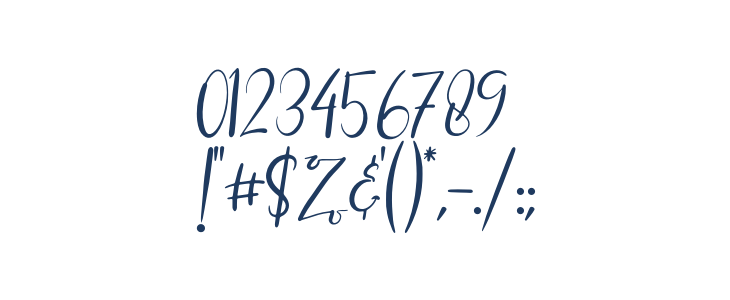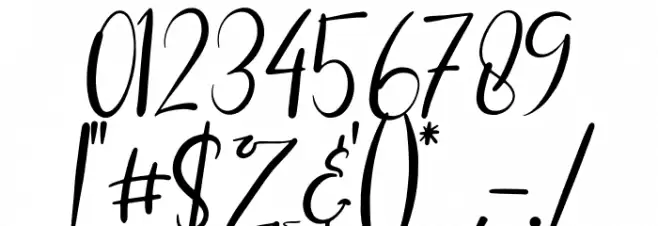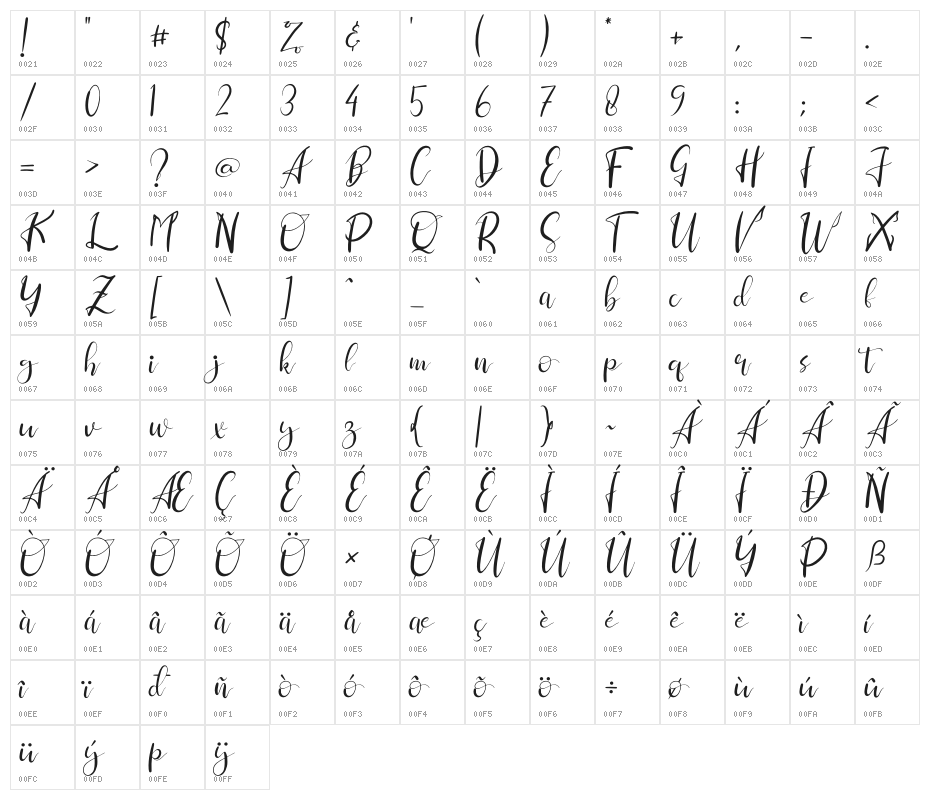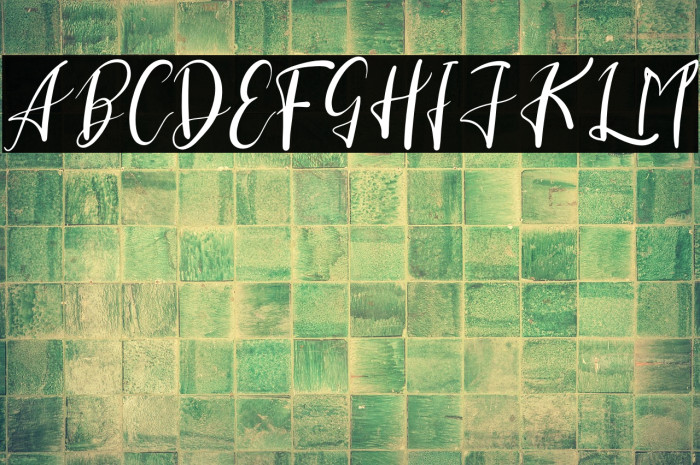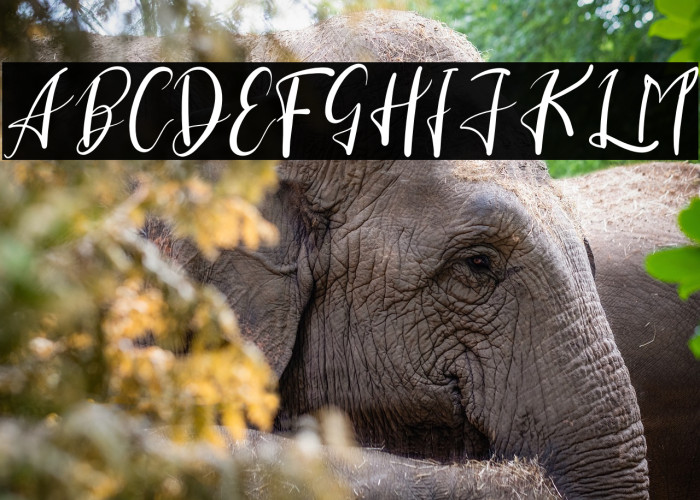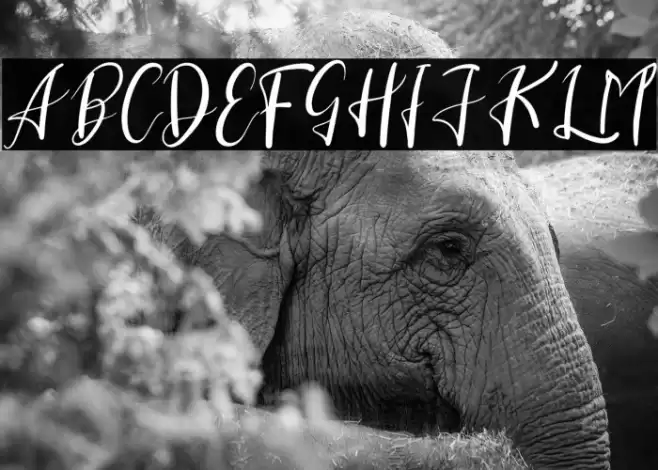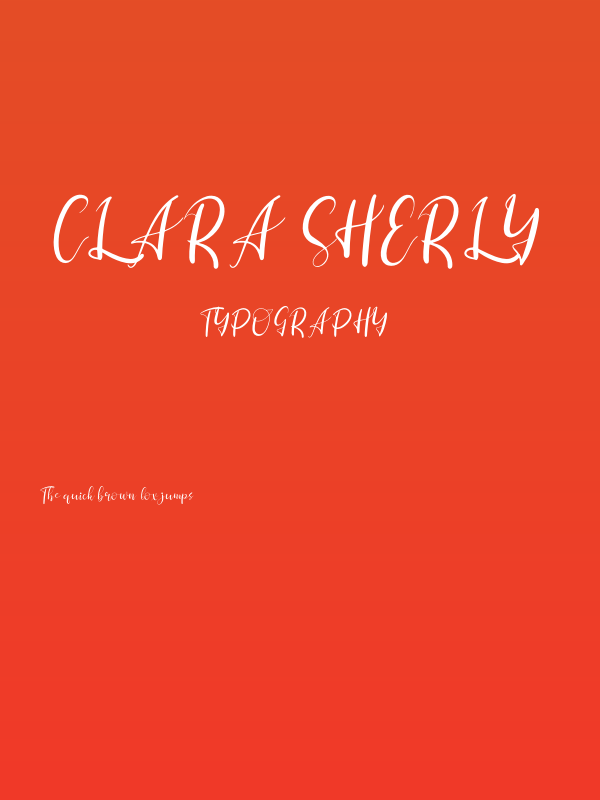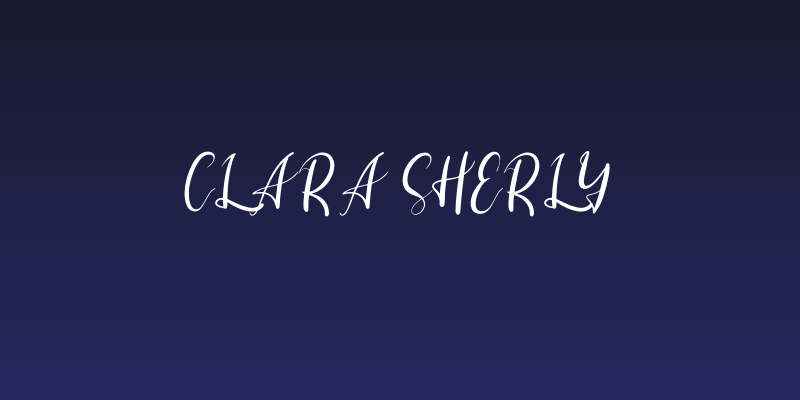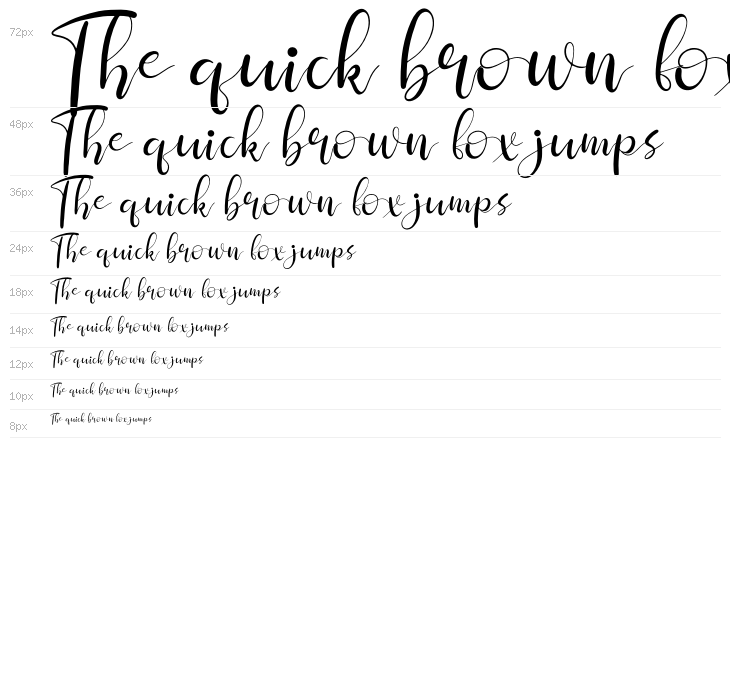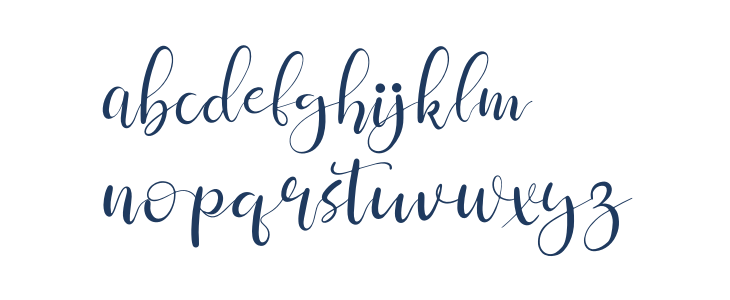
Clara Sherly Font
Clara Sherly Description
This font features an elegant and flowing script style, characterized by its cursive and connected letterforms. The uppercase letters are ornate, with sweeping curves and flourishes that give a sense of sophistication and grace. The lowercase letters maintain a consistent flow, enhancing readability while retaining a decorative flair. The numerals are stylized to match the overall script aesthetic, with unique curves and angles. Special characters are designed with similar attention to detail, ensuring they blend seamlessly with the rest of the typeface. This font exudes a sense of elegance and is perfect for projects that require a touch of class and refinement.
| Use Case | Headlines, Invitations, Branding |
| Proposed Projects | Ideal for wedding invitations, elegant branding, greeting cards, and upscale packaging. |